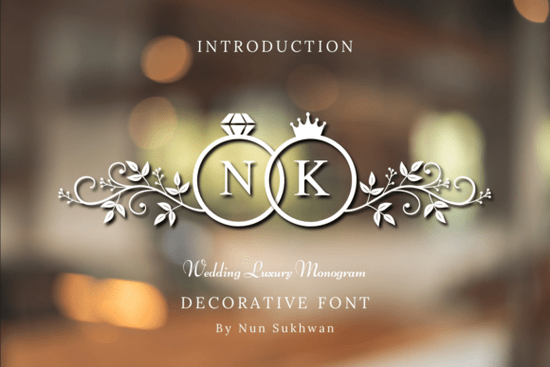
If you're looking for a decorative font that works beautifully on wedding invitations, monogrammed napkins, or luxury jewelry tags, the Wedding Luxury Font is worth your attention. It’s not just another script it’s a carefully crafted typeface designed with real-world use in mind: vector-based, easy to scale, and built for print clarity and digital versatility. Whether you’re a small business owner creating custom stationery or a hobbyist designing keepsake favors, this font delivers consistent results without extra tweaking.
What makes this font different from other wedding fonts?
Most decorative fonts rely heavily on swashes or exaggerated loops but Wedding Luxury Font stands out because of its layered design logic. Each letter sits inside a clean vector ring enclosure, like a miniature crest. On top sit subtle diamond cutouts and royal crowns details that read as elegant, not fussy. Below, delicate botanical leaves and symmetrical flourishes trail naturally, giving rhythm without clutter. That balance is rare. You’ll find similar visual language in historic family crests, but here it’s adapted for modern workflows: OpenType-ready, cleanly spaced, and optimized for both laser engraving and high-res printing.
Where does it work best in real projects?
This font shines where subtlety and craftsmanship matter most. Think:
- Custom wedding stationery suites (save-the-dates, menus, place cards)
- Monogrammed leather goods like clutches or passport holders for bridal parties
- Luxury jewelry branding, especially for heirloom or anniversary collections
- Pressed foil or embossed event headers for upscale venues
- Small-batch favor tags made from cotton rag paper or recycled kraft
It’s not meant for body text or long paragraphs. But for short, meaningful phrases “Mr. & Mrs.,” “Est. 2024,” or a couple’s initials it adds quiet authority. If you’ve used the Wedding Luxury Font alongside the Wedding Heart Tree Font, you’ll notice how well they complement each other: one leans regal and structured, the other organic and tender. That kind of pairing helps build cohesive, memorable branding especially useful if you sell coordinated digital bundles or printable kits.
How does it compare to other decorative fonts in the same category?
Compared to trending brush scripts or over-rendered calligraphy fonts, Wedding Luxury Font prioritizes legibility at small sizes. Its vector rings and crown elements are crisp even when scaled down to 12 pt for liner notes or bottle tags. Many designers report fewer issues with overlapping paths or inconsistent line weights common pain points with hand-drawn alternatives. And because it includes full uppercase, lowercase, numerals, and basic punctuation, it’s ready for immediate use in Canva, Adobe Illustrator, Silhouette Studio, or Cricut Design Space. No need to hunt for alternate glyphs or manually adjust spacing.
Who should consider adding it to their collection?
You’ll get the most value if you:
- Design for weddings regularly or plan to expand into that niche
- Sell physical products like engraved coasters, stamped linen napkins, or foil-stamped boxes
- Create digital downloads for crafters (e.g., editable invitation templates or SVG monogram sets)
- Prefer fonts that include clean vector elements not rasterized PNGs or layered PSD files
- Want something distinctive but still widely accepted by clients who appreciate tradition with a refined touch
It’s also a thoughtful addition if you already use fonts like Wedding Heart Tree Font. Together, they offer contrast without clashing ideal for layered layouts or multi-font branding systems.
- ✅ Pair it with a simple sans-serif or serif for contrast avoid stacking multiple decorative fonts
If you’re building a portfolio around romantic, elevated design whether for Etsy listings, client presentations, or social media mockups this font quietly strengthens your credibility. It doesn’t shout. It settles in, thoughtfully.